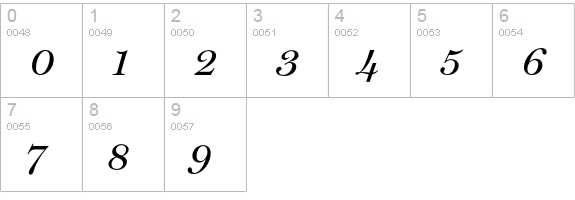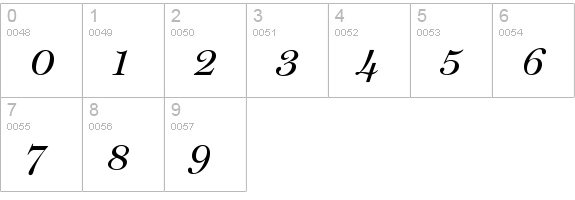
Miller-DisplayItalic Font Details
Miller-DisplayItalic font is a sleek and sophisticated typeface that exudes elegance and modernity. With its slanted and italicized design, this font is perfect for adding a touch of flair to any project. The italicized strokes lend a sense of movement and dynamism to the text, making it ideal for conveying a sense of creativity and innovation. What's even better is that Miller-DisplayItalic font is available for free download at FontsMarket.com. This means you can easily access this stylish font and incorporate it into your designs without incurring any cost. Whether you're working on a branding project, a website design, or any other creative endeavor, Miller-DisplayItalic font is sure to elevate your work and make a lasting impression. Don't miss out on this opportunity to enhance your projects with this beautiful and freely available font. Download it now and see the difference it can make!